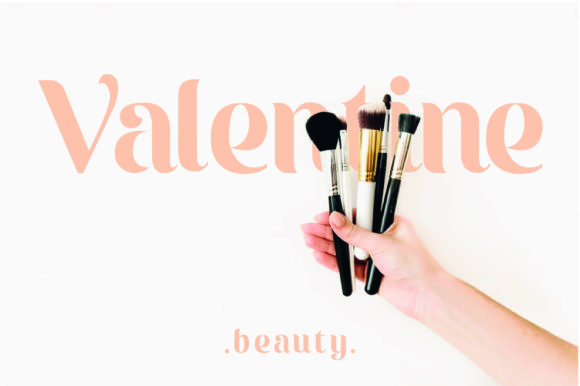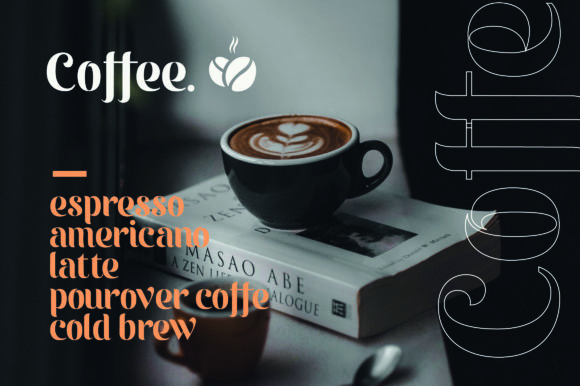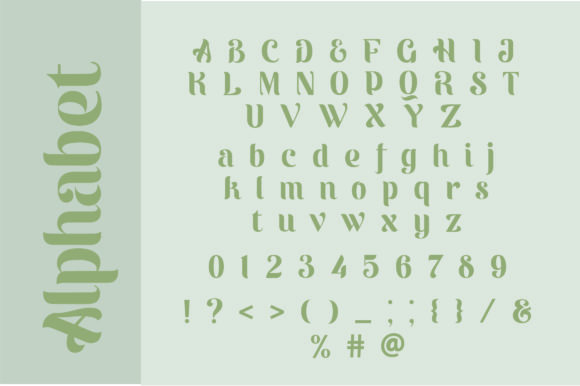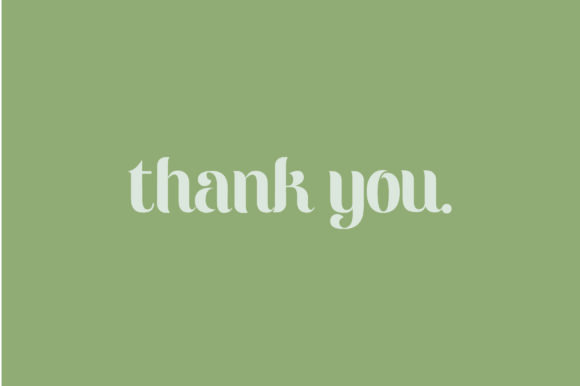
Introduction to Ragantie Font
Have you ever stared at a blank canvas, waiting for that perfect spark to ignite your creativity? For designers, this moment is a familiar struggle. But what if we told you that the key to unlocking your full potential lies in a single, powerful font? Enter the Ragantie Font, a bold and striking serif font that’s about to take your creative projects to the next level.
| 👤 Author | yaskazstd |
With its thick, cool letters and high-quality design, the Ragantie Font is the ultimate design resource for any creative endeavor. Whether you’re working on a free download or a paid project, this font is sure to elevate your work and make it stand out from the crowd. Its transparent background and versatile style make it the perfect addition to any font library.
So why is the Ragantie Font so valuable for designers? For one, it offers a level of sophistication and elegance that’s hard to find in other fonts. Its high-quality design ensures that your work will look professional and polished, every time. Whether you’re a seasoned pro or just starting out, the Ragantie Font is an essential tool for any creative project.
Key Features of Ragantie Font
- High-quality design resource for creative projects, perfect for those seeking a unique aesthetic.
- Transparent background, allowing for seamless integration with any design or image.
- Designed to be highly legible, even at small font sizes, making it ideal for a variety of applications.
- Perfect for use in logos, branding, and other creative projects where a distinctive and eye-catching font is required.
Honest Review: Ragantie Font
As a designer, I’m always on the lookout for high-quality fonts to elevate my creative projects. The Ragantie Font caught my eye due to its unique and elegant style, making it a great addition to any design resource collection.
- Transparent background, allowing for seamless integration with any design
- Unique and elegant style that adds a touch of sophistication to any project
While the Ragantie Font is a great addition to any design resource collection, I did find a few limitations. The font can be a bit too ornate for some projects, and the lack of bold weights may limit its use in certain situations.
Overall, I’m impressed with the Ragantie Font. Its unique style and high-quality design make it a great choice for creative projects, and the free download is a definite bonus. While it may have some limitations, I think it’s definitely worth adding to your design resource collection.
Tips for Getting the Most Out of Ragantie Font
To get the most out of the Ragantie Font, use it on a transparent background to create a subtle and elegant design. Experiment with different font sizes, colors, and styles to create a unique look that suits your creative project.
The Ragantie Font is ideal for use in creative projects such as logo design, branding, and typography-based designs. It’s also great for use in presentations, reports, and documents where a high-quality font is required.
Yes, the Ragantie Font is designed to be a high-quality font suitable for various creative projects, including graphic design, typography, and digital art. Its unique design and high-resolution formatting make it an excellent choice for designers looking to add a touch of elegance to their work.